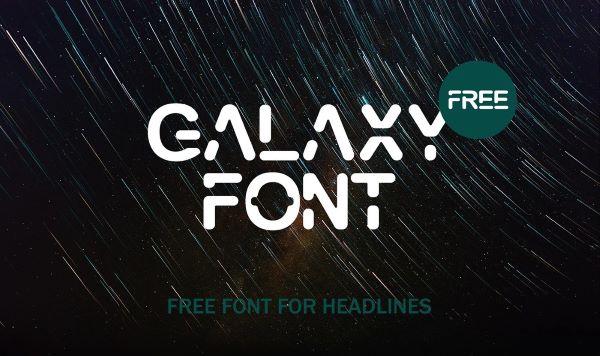
Galaxy Font
Galaxy Font propels design into the future through Dmitry Baranov’s geometric display creation featuring all-caps styling with distinctive futuristic aesthetics. This sleek, modern typeface combines rounded letterforms with creative stencil elements and cool geometric precision perfect for capturing attention in headlines, titles, and display applications.
Galaxy’s forward-thinking design excels in technology branding, sci-fi projects, innovative product packaging, and contemporary editorial work where standing out with sophisticated futuristic character creates memorable visual impact that resonates with modern audiences.